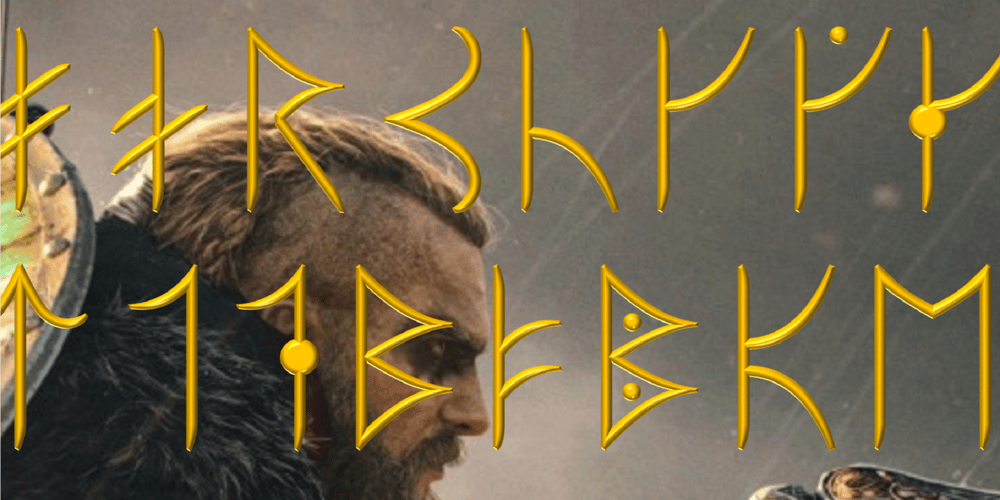
Ongunkan Runic Unicode Karabalg Font Family was designed by Osman Nuri ALKAN and published by Runic World Tamgacı. Ongunkan Runic Unicode Karabalg contains 1 styles and family package options. I adapted the runic design feature used in the Karabalgasun monument, one of the ancient Turkish monuments, into the font I had previously created for Elder Futhark. Now I have adapted it to all Runic Letters in the Runic unicode table. It was pretty fantastic. We hope you will use it in good works.